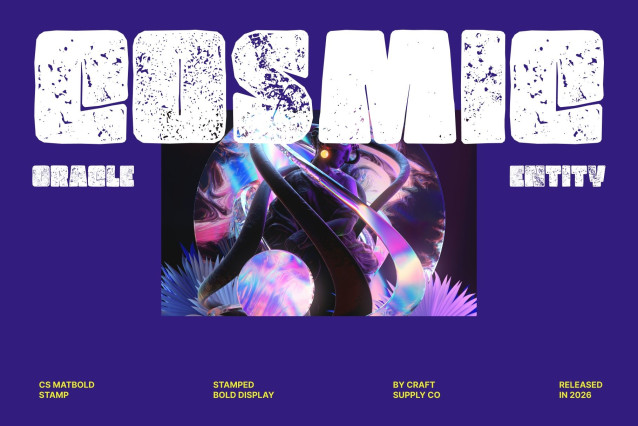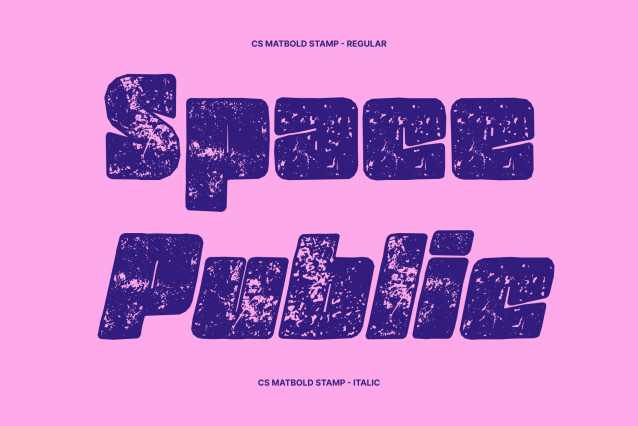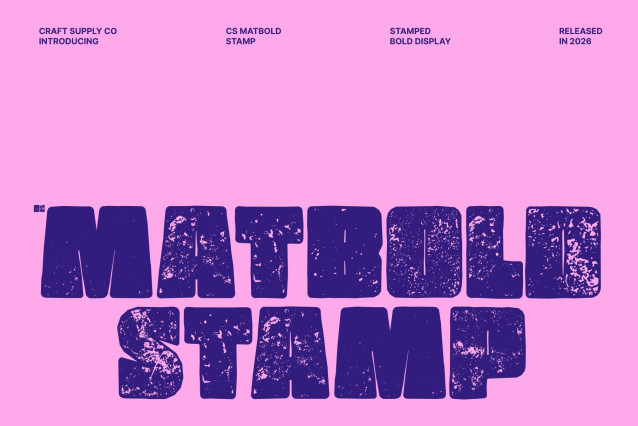
CS Matbold Stamp Font
CS Matbold Stamp – Display Sans Serif Font: Where Bold Impact Meets Vintage Character
Powerful Presence with Strong Structure
This is a bold display sans serif font designed to command attention with its solid, confident shapes. Its strong construction ensures maximum visibility, making every word stand out with clarity and force. Built for high-impact typography, this font delivers a striking presence that instantly captures the viewer’s eye.
Hand-Drawn Expression with Unique Personality
Infused with a hand-drawn effect, this font brings expressive character and individuality to each letterform. The organic strokes introduce a sense of spontaneity and creativity, transforming text into dynamic visual elements. This handcrafted touch adds warmth and personality, making the font feel lively and engaging.